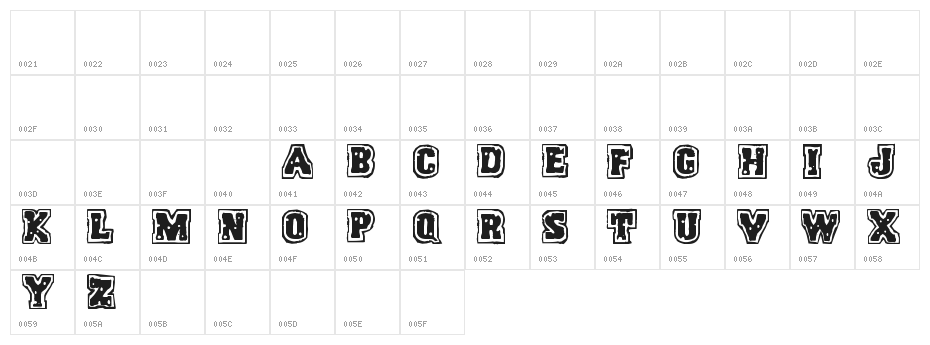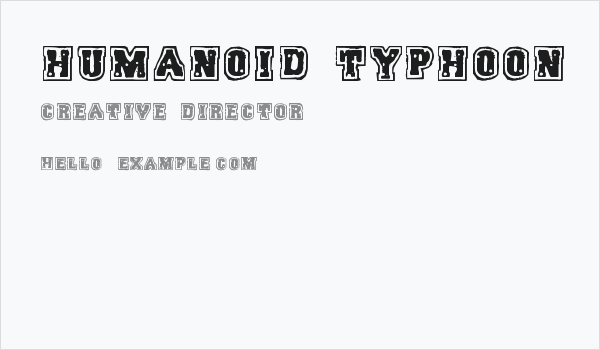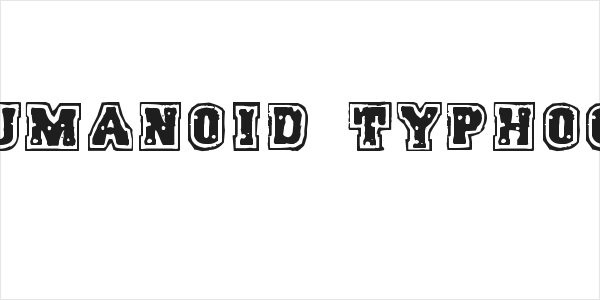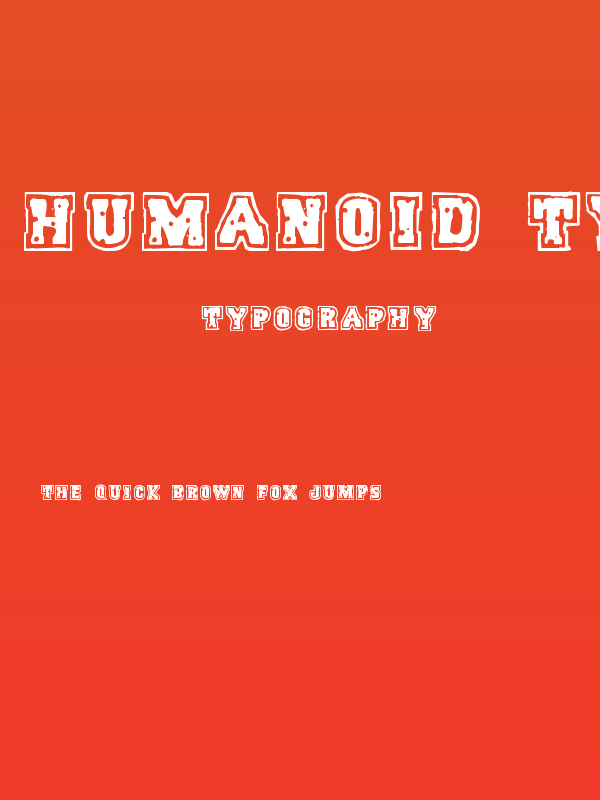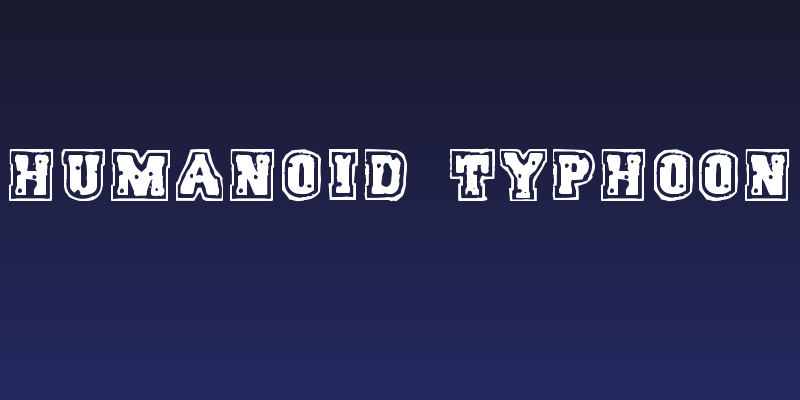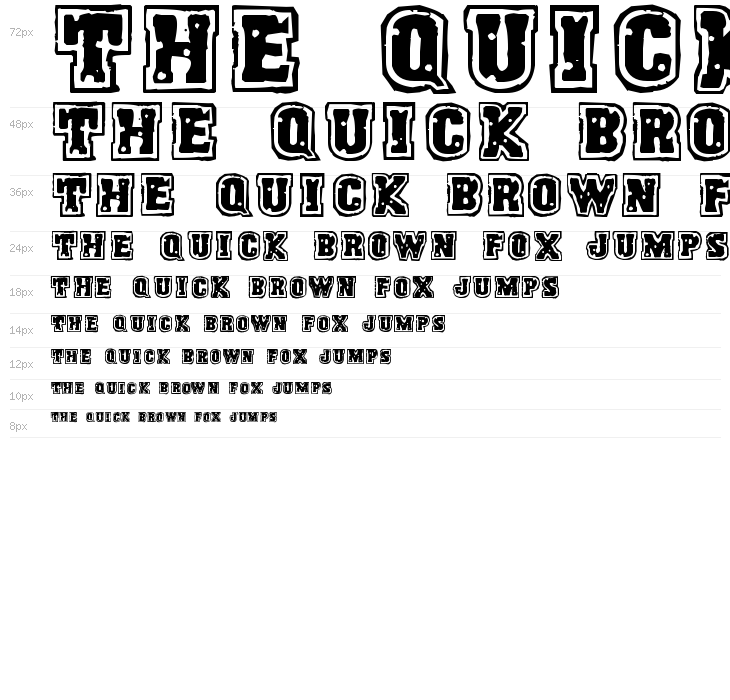
Humanoid Typhoon Font
Humanoid Typhoon Description
This font features a bold and rugged design with a distressed appearance, giving it a vintage and weathered look. The characters are outlined with a thick black border, creating a strong contrast against the white interior. Each letter is uniquely styled with irregular edges and small cutouts, enhancing its rustic charm. The font's boldness and decorative elements make it ideal for eye-catching designs. Its distinct style is reminiscent of old western or vintage poster typography, making it suitable for projects that require a touch of nostalgia or a bold statement.
| Proposed Projects | Ideal for vintage posters, western-themed events, branding, and logo design. |